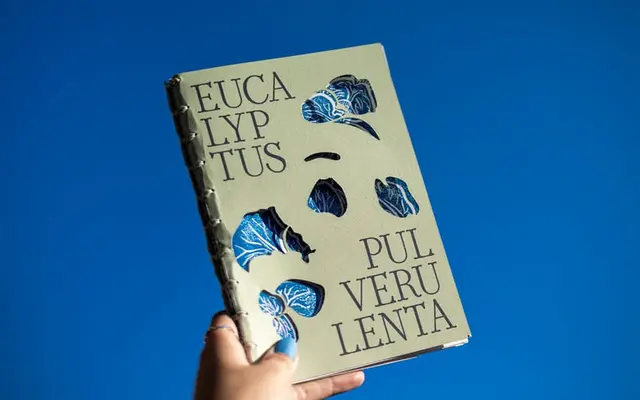
ALT Nadrey
ALT.tf · O'Plérou Grebet
A single-weight humanist serif by Côte d'Ivoire-based designer O'Plérou Grebet, distinguished by soft curves and rounded letterforms drawn from personal and cultural affection.
Designed by O'Plérou Grebet, known for developing visual language tools rooted in African culture, Nadrey takes its name from the Bété word for 'My Heart'. The typeface carries rounded, organic letterforms with gentle serifs and smooth stroke transitions, lending it a warm and expressive character suited to editorial, branding and cookbook design. It covers 98% of Latin languages through an extended character set of over 300 glyphs including diacritics, fractions and symbols.
Nadrey features soft, rounded letterforms with subtle serifs and smooth transitions, placing it within the humanist serif tradition. Its organic, calligraphic quality sets it apart from more geometric or transitional serif styles.